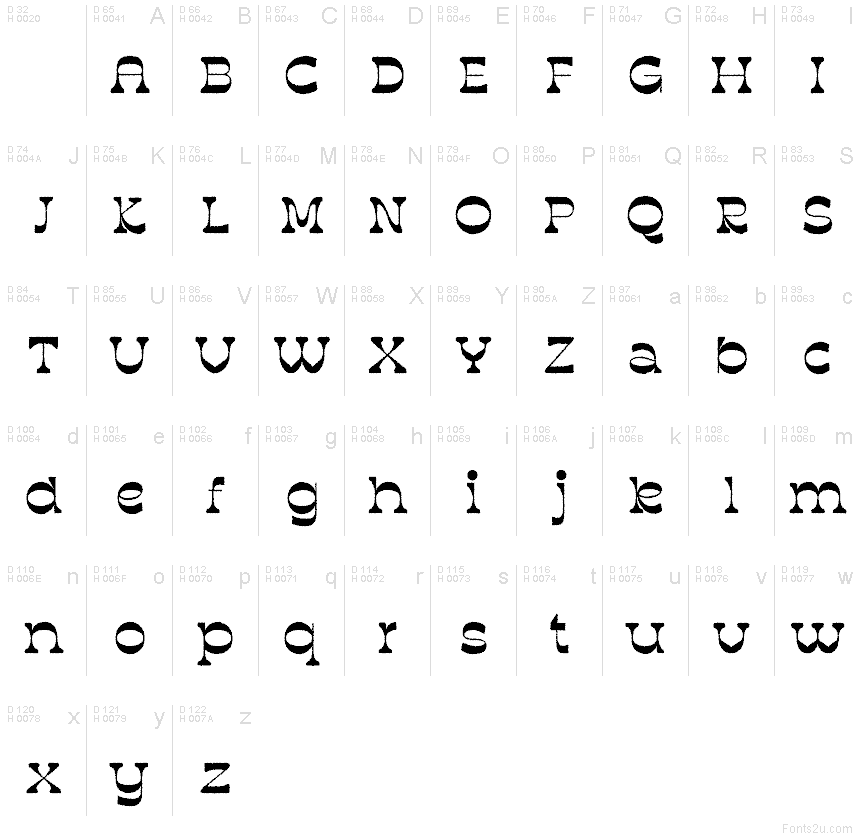
QuirosRough-Regular Demo
Quiros Rough font by Craft Supply Co. is a rustic and vintage-inspired typeface designed for display use. The letters are expanded in width, have textured appearances, and resemble western typography of the past. Their organic shapes combine with rough edges to add an artistic flair while keeping it all highly readable.
The free display font finds remarkable use in signage designs, labels, headlines, packaging designs, billboards, magazine covers, web pages (as images), video game interfaces/titles , film posters/credits ,editorial pages , book covers .